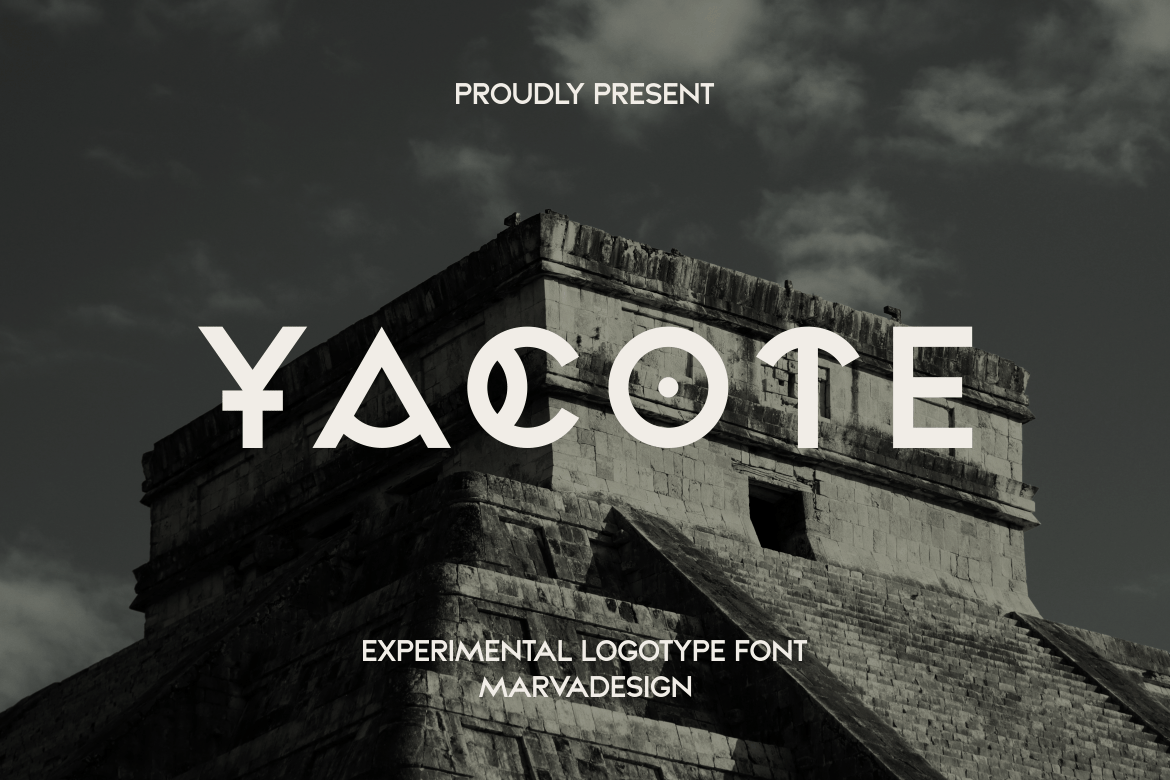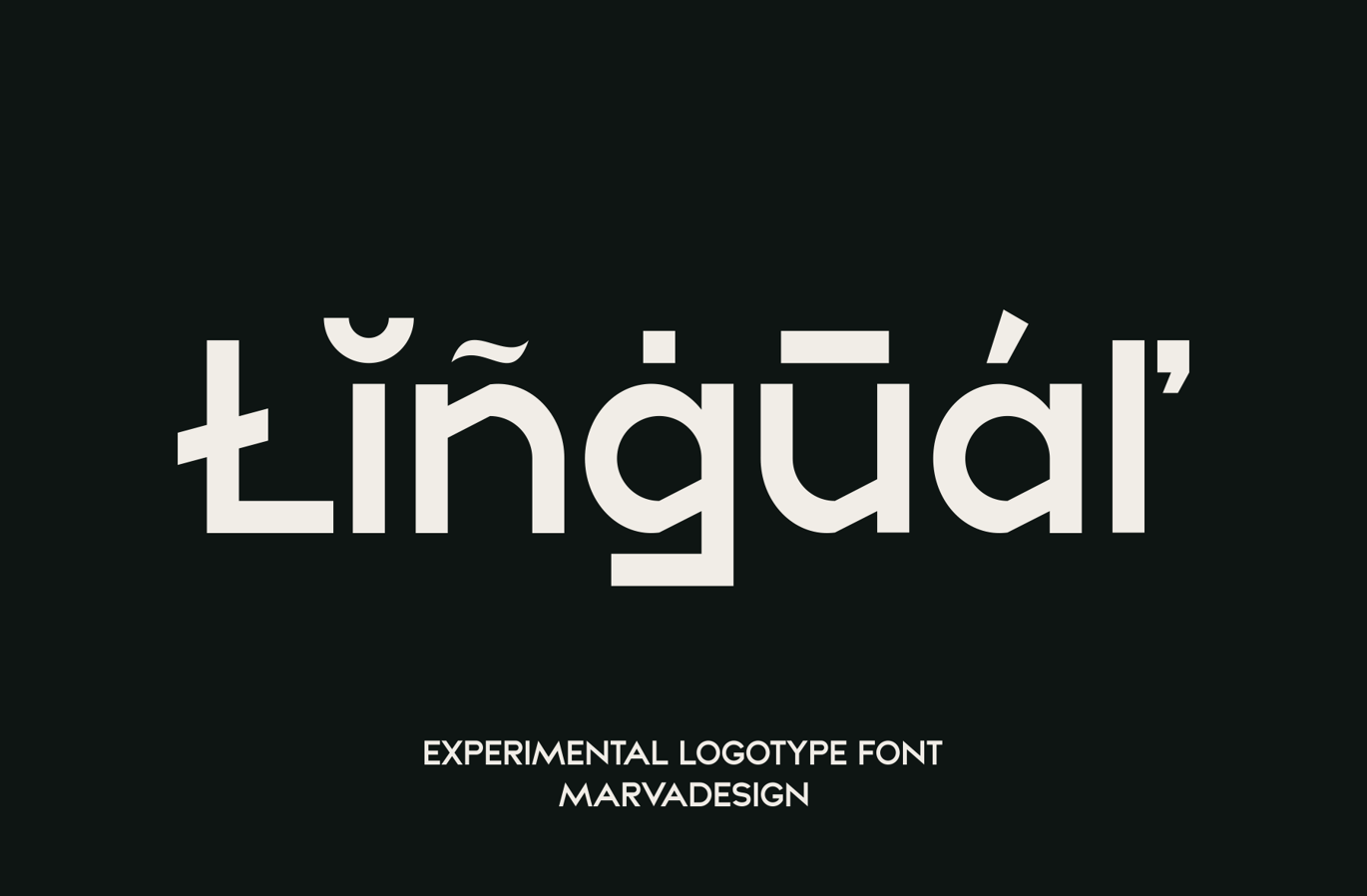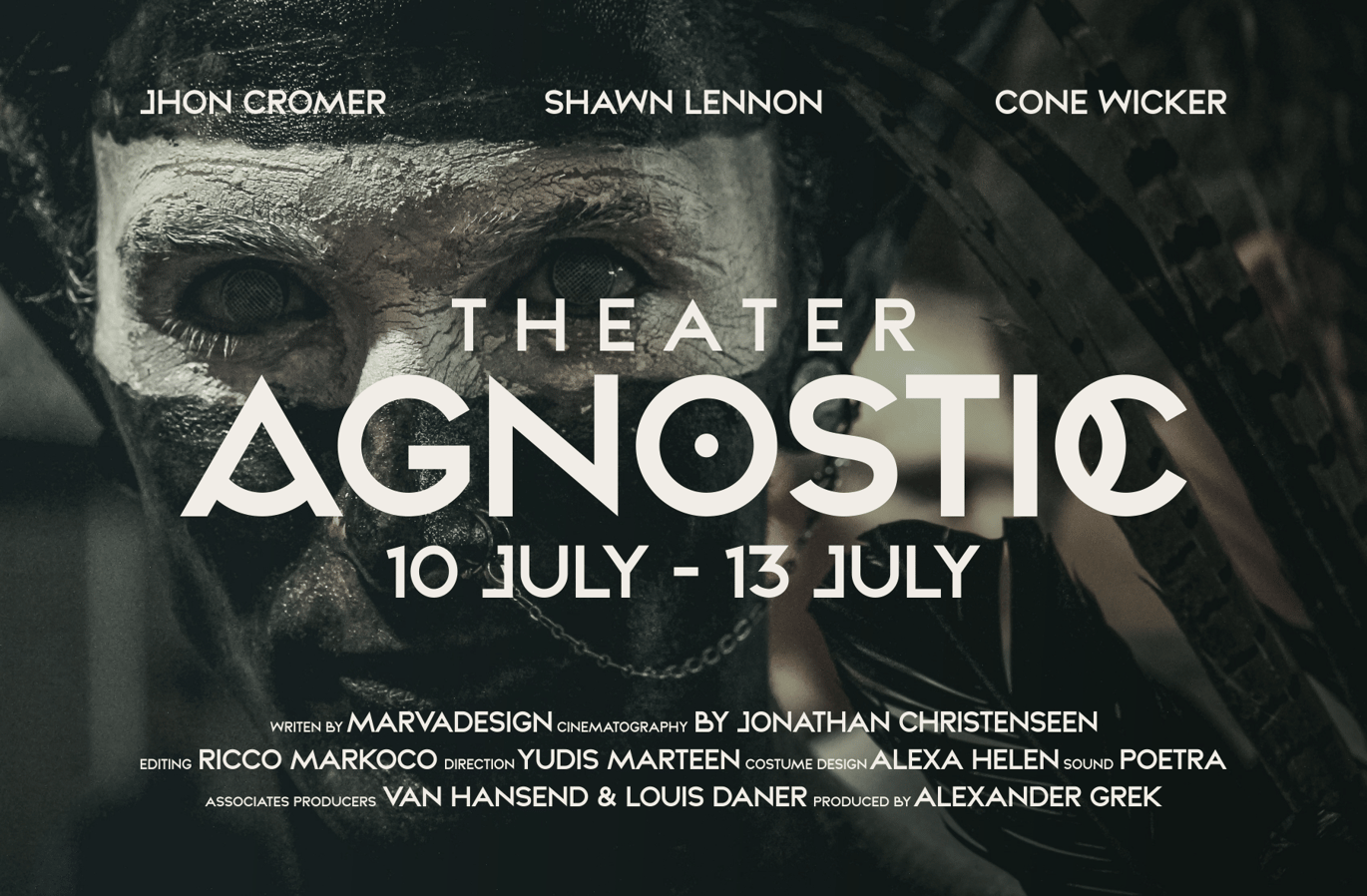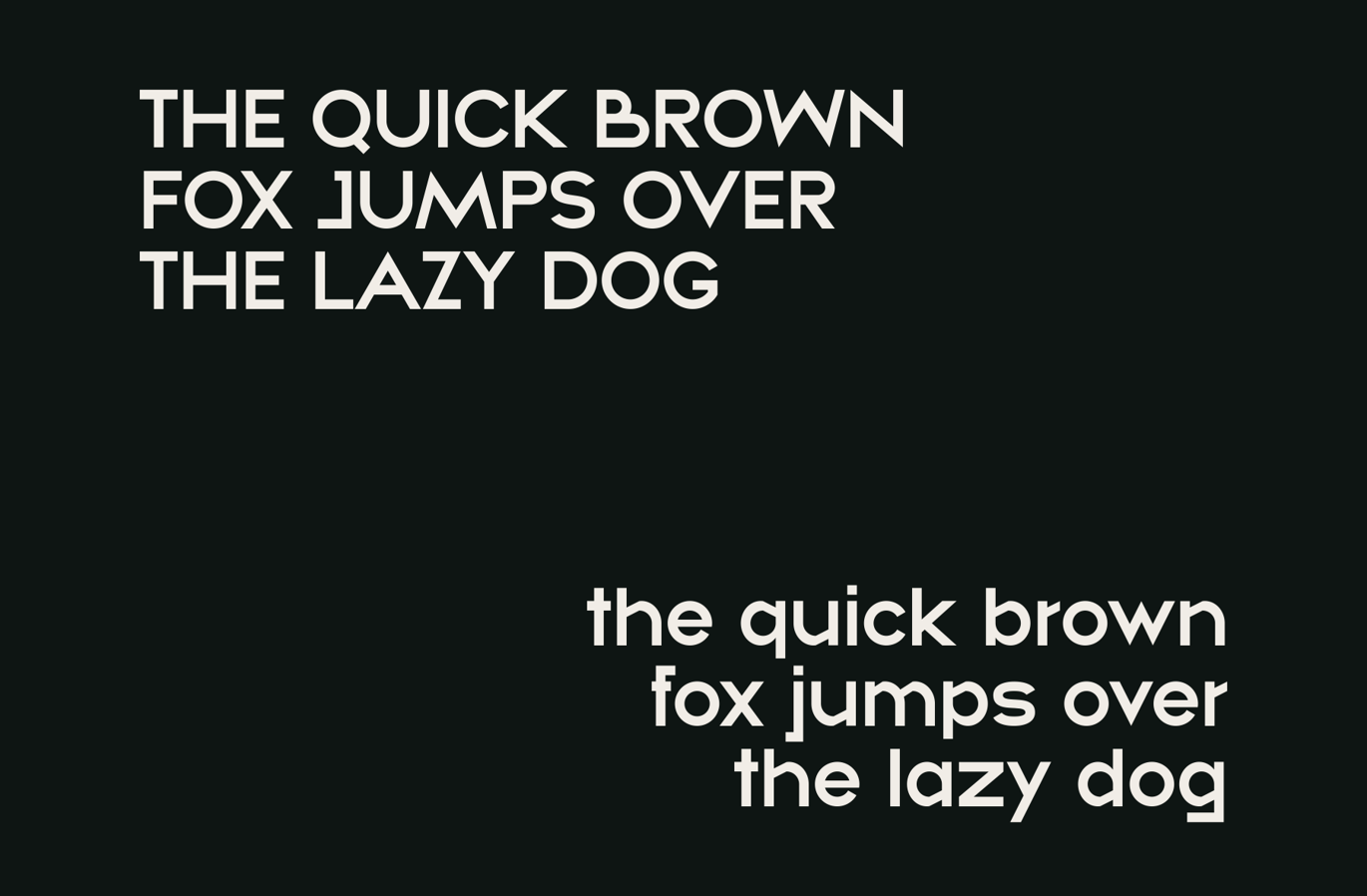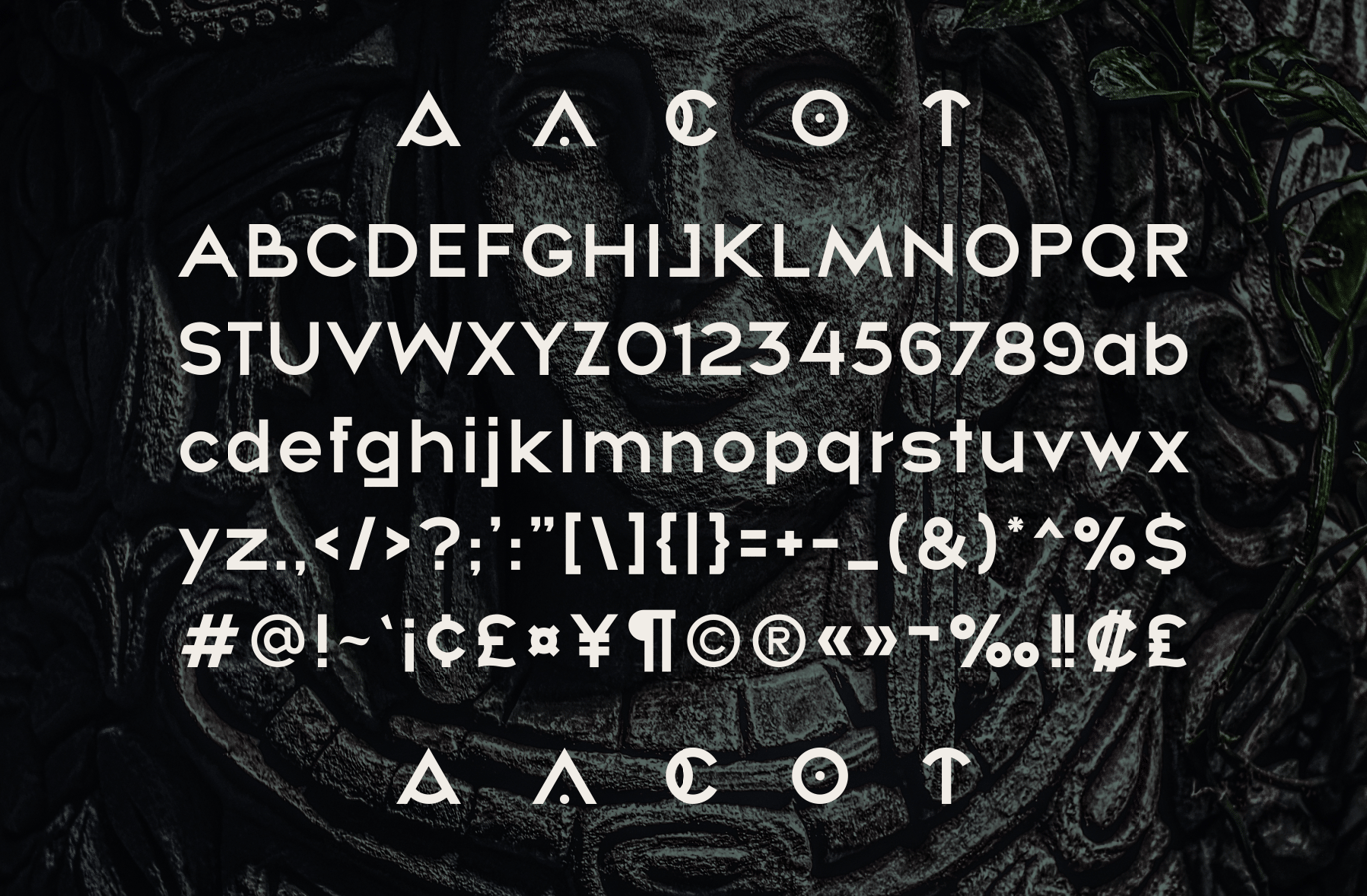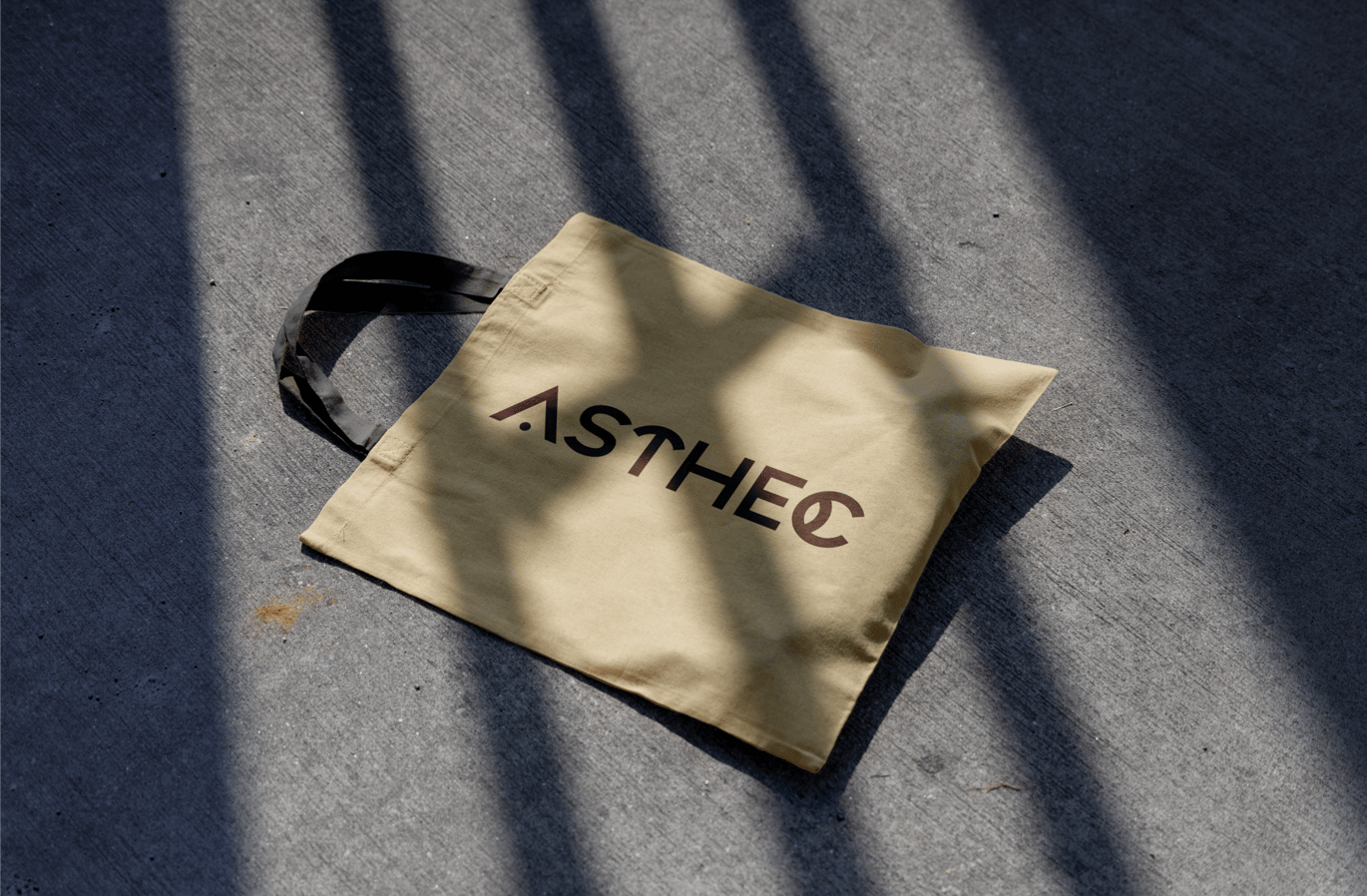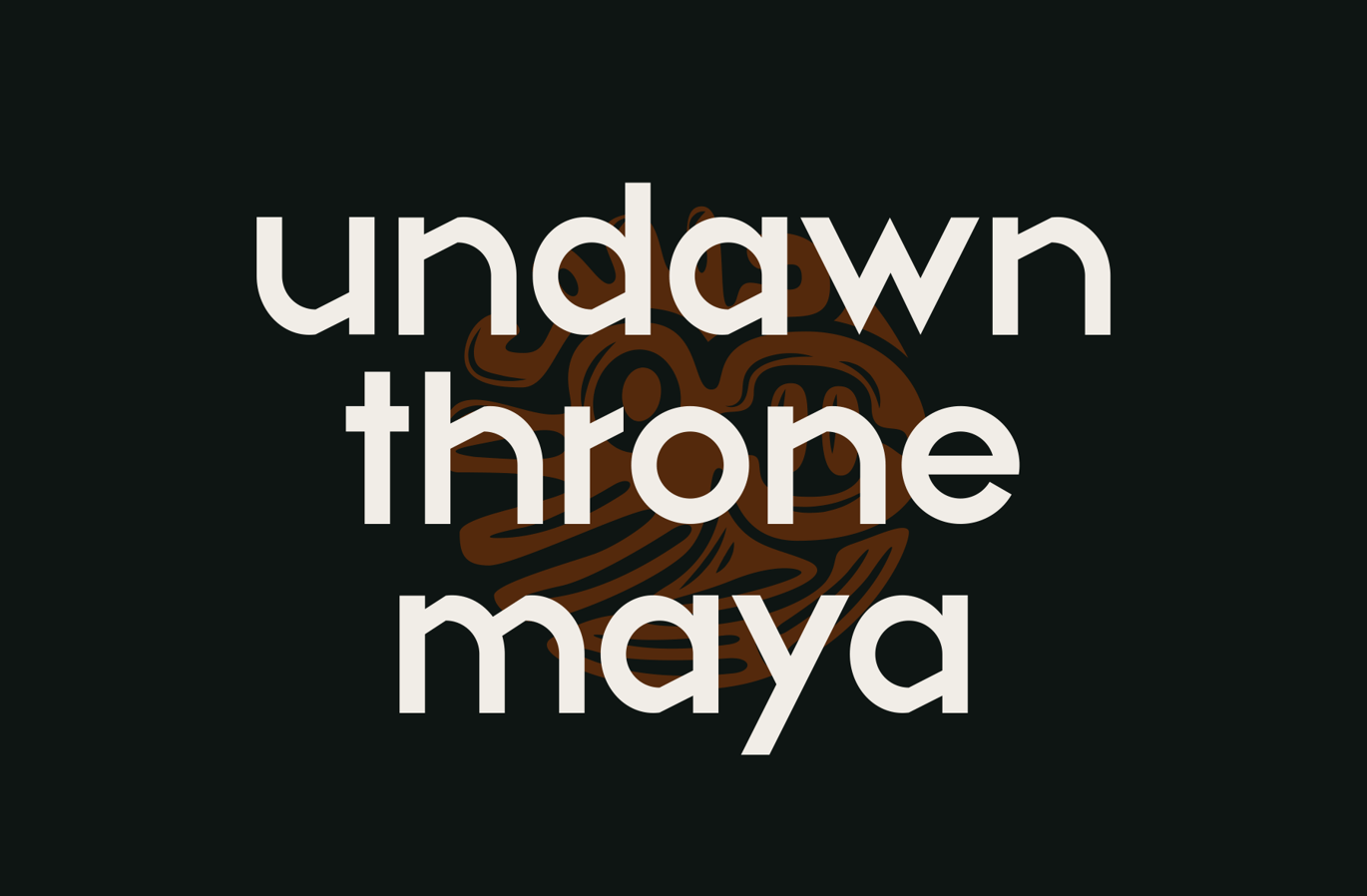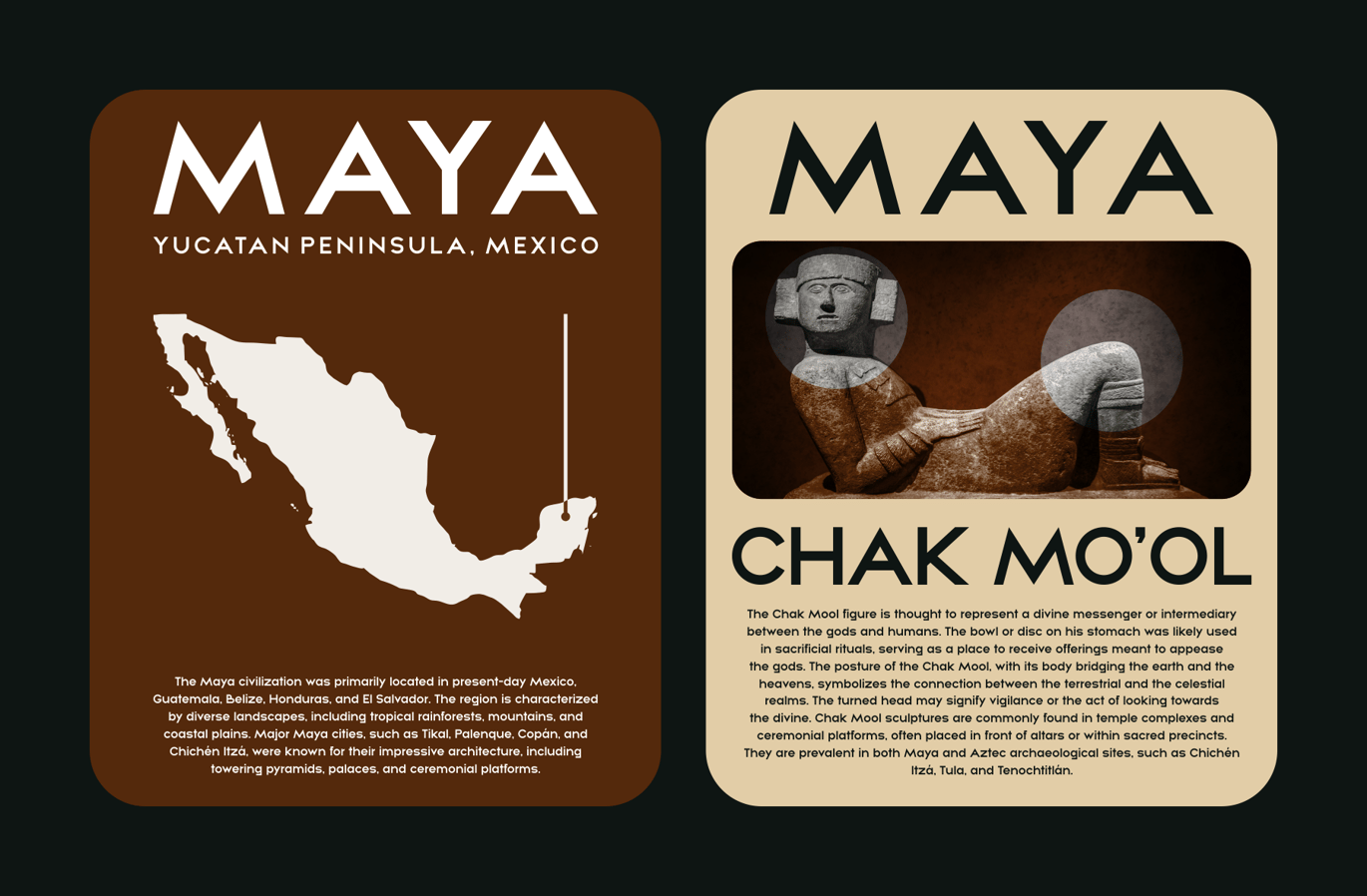
Yacote – Display Sans Font
Introducing Yacote is a display sans-serif font that blends traditional Maya elements with a modern, elegant style, making it ideal for logotype and branding purposes. This typeface captures the essence of the ancient Maya civilization through its distinctive design features while maintaining a clean and contemporary appearance.
Usage and Application
- Branding and Identity: Ideal for creating logos, brand names, and corporate identities that require a touch of sophistication and cultural richness.
- Editorial Design: Suitable for use in magazines, book covers, and other editorial projects where an elegant yet distinctive typeface is needed.
- Packaging: Perfect for product packaging that aims to convey luxury, heritage, or a unique cultural story.
- Advertising: Effective in advertisements and marketing materials that need to capture attention and make a strong visual impact.